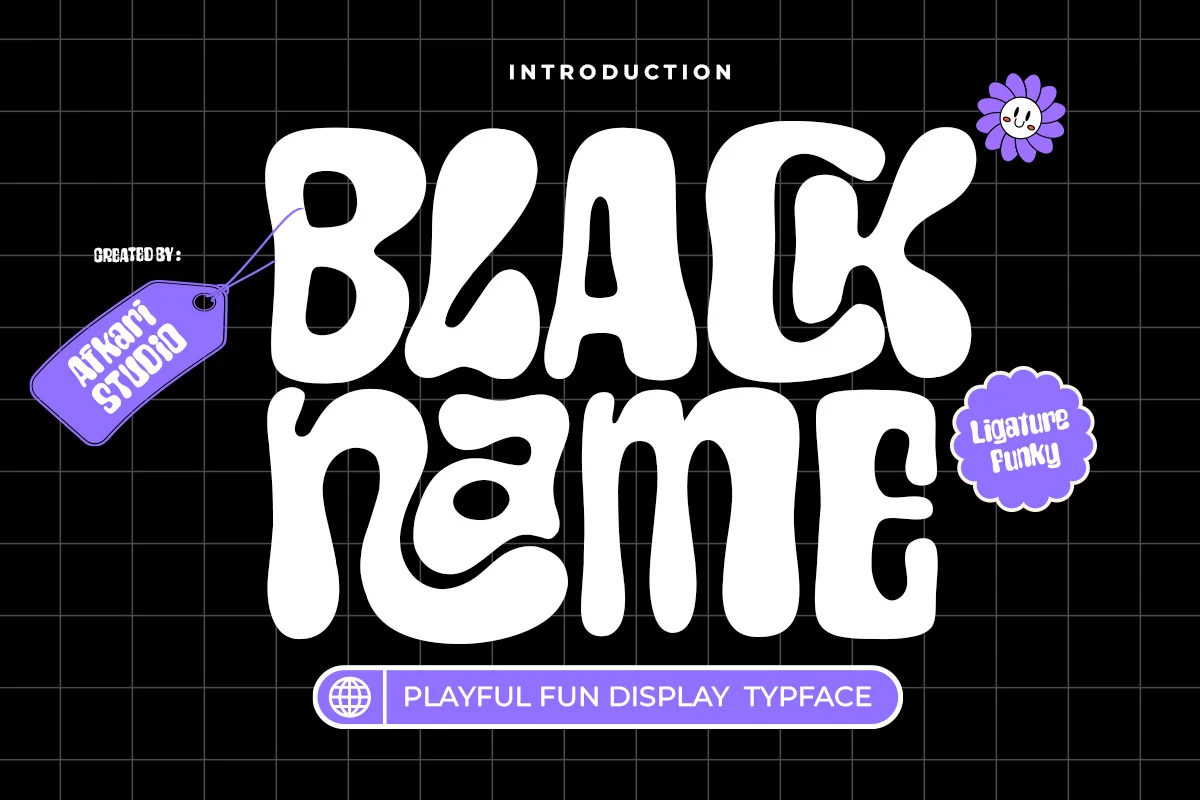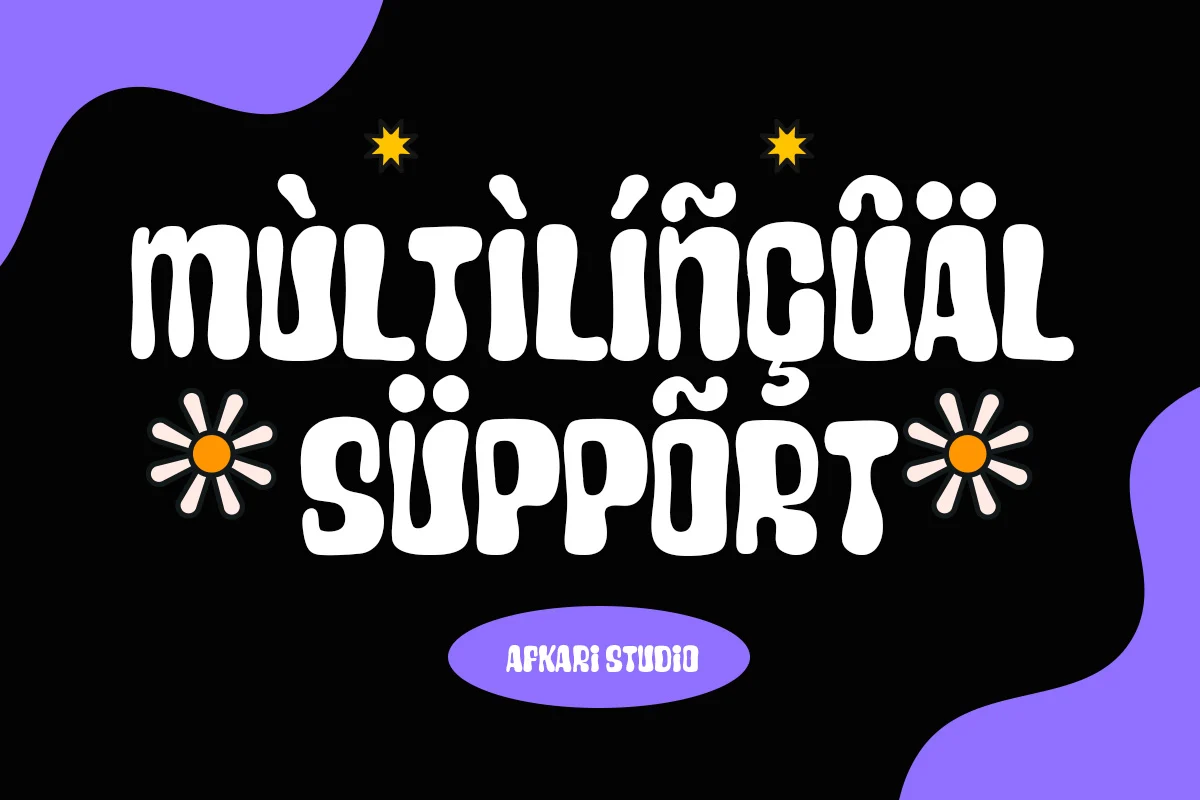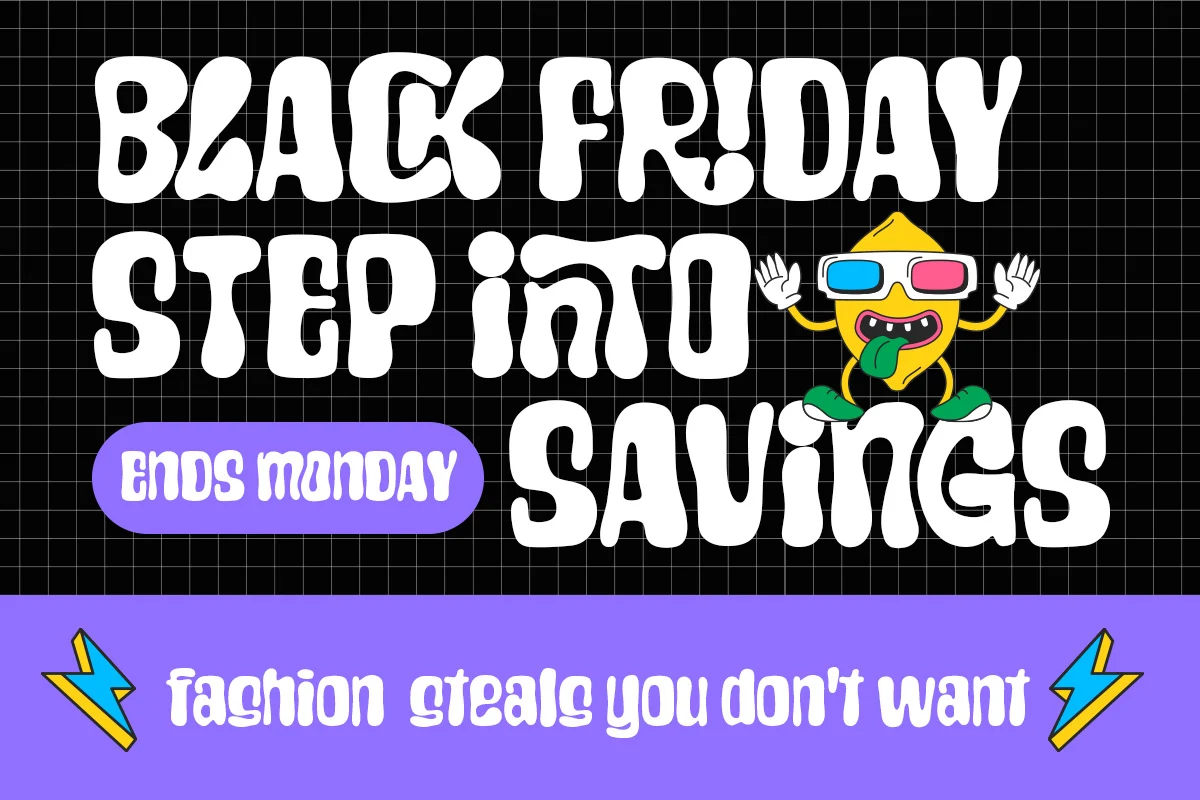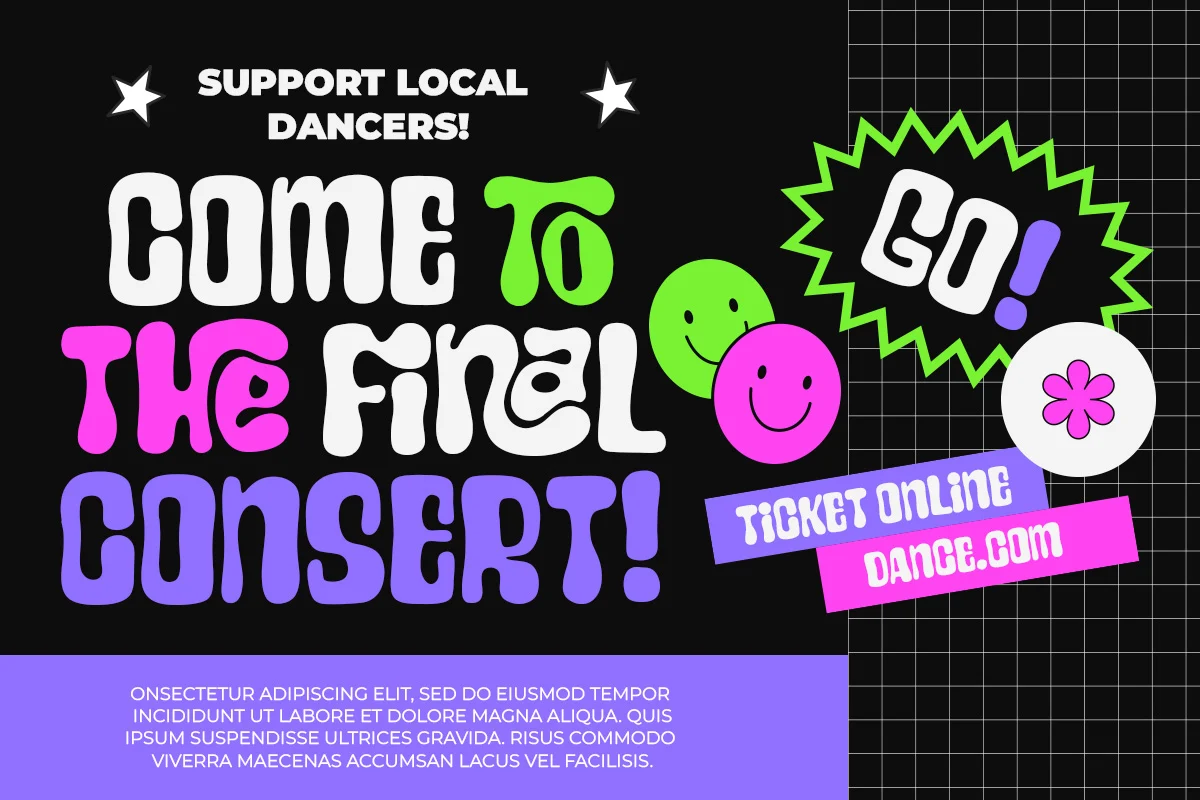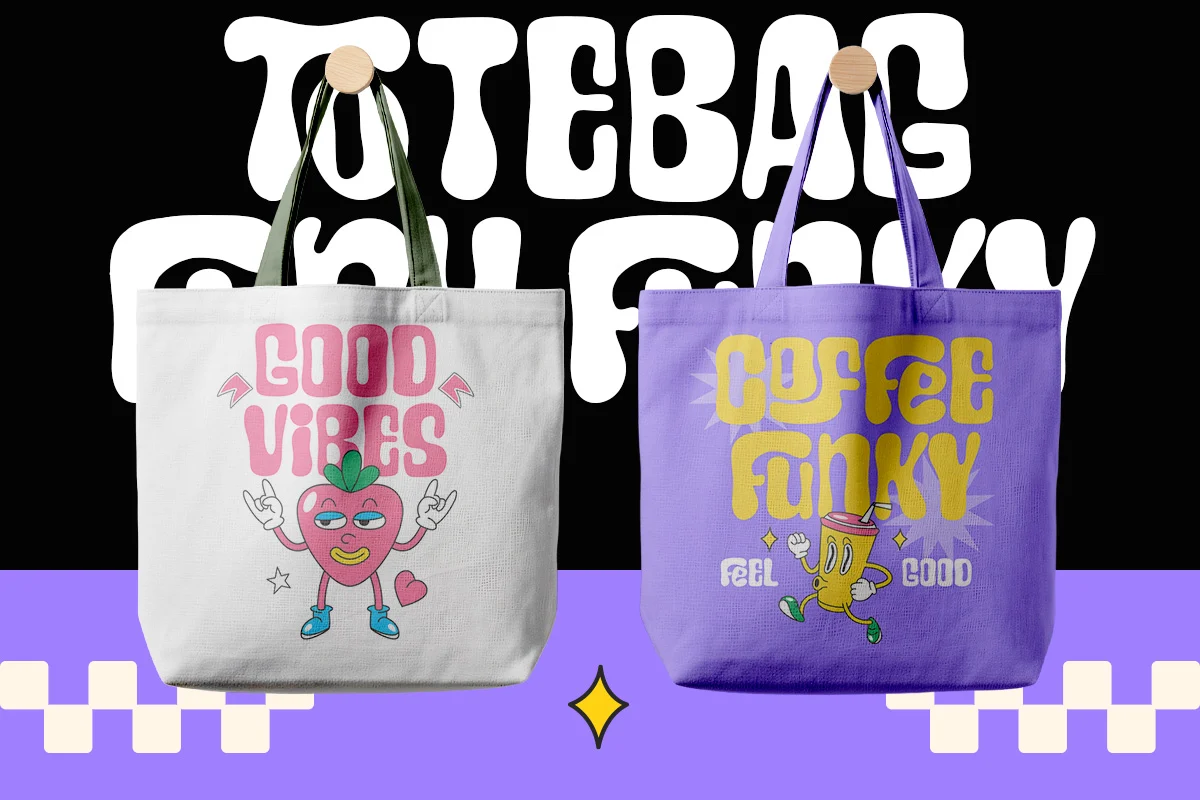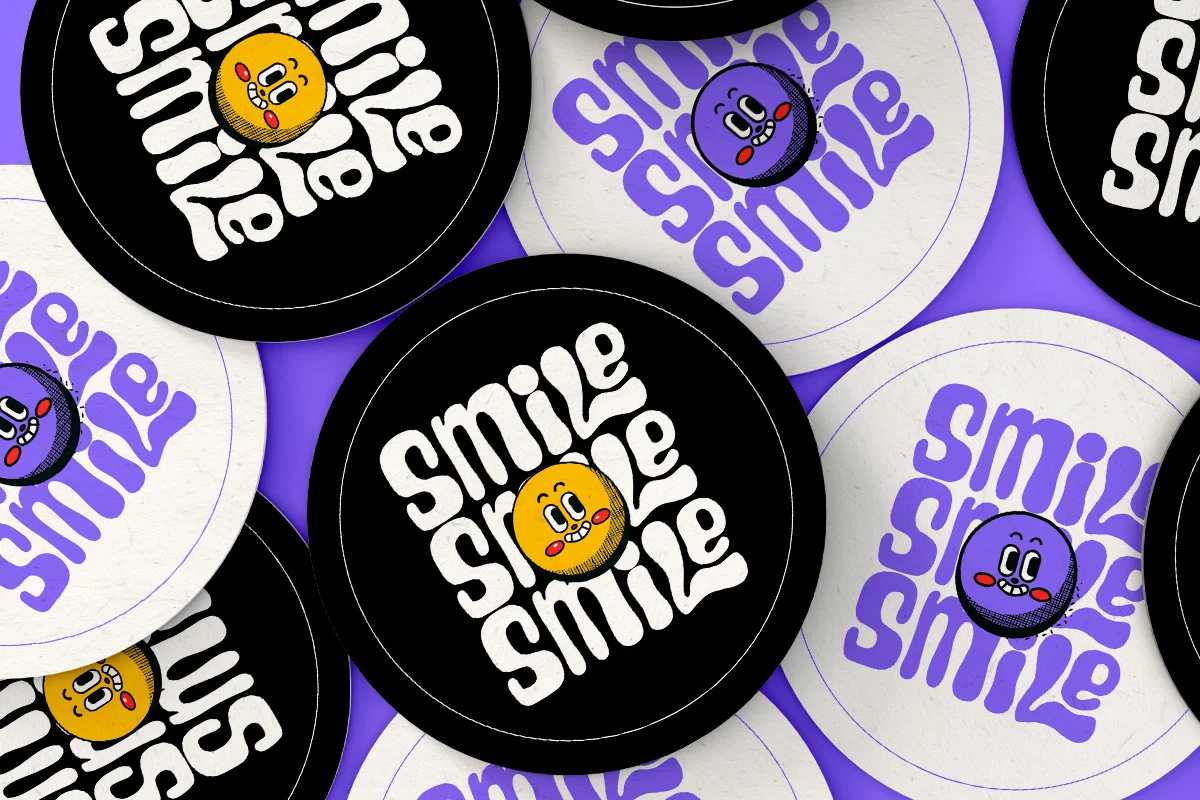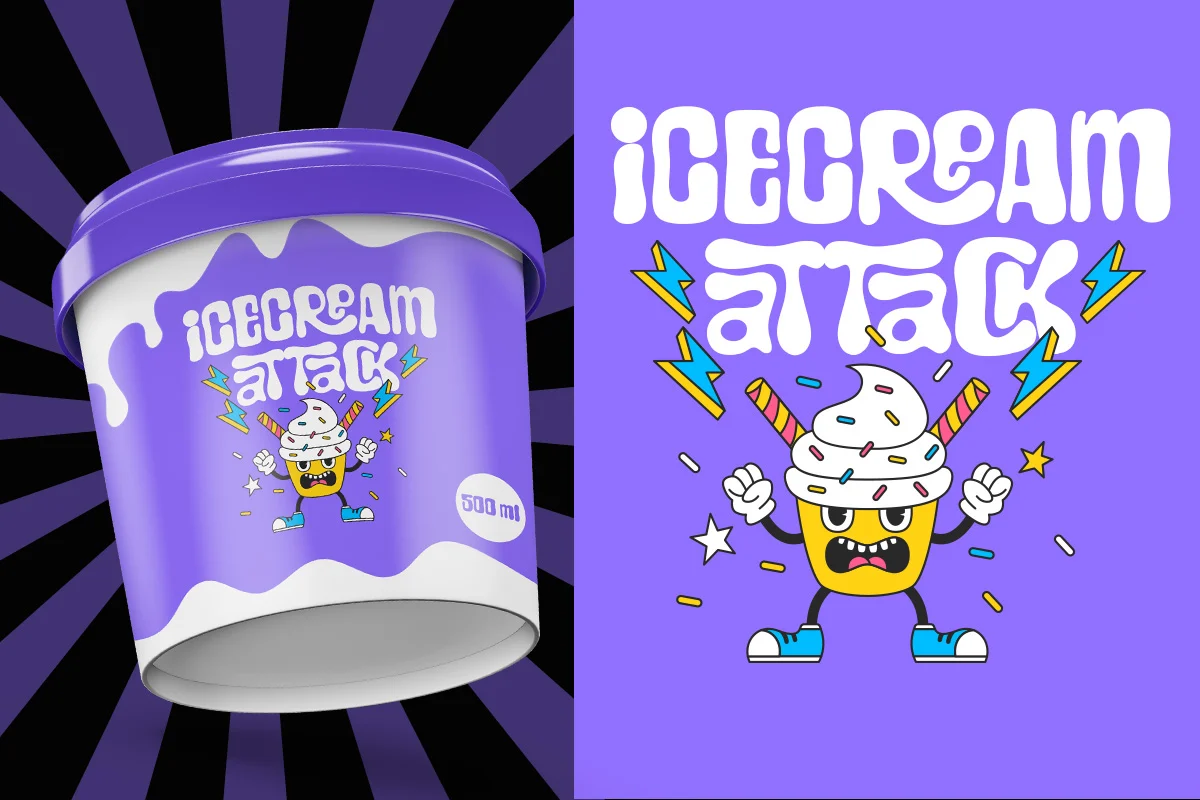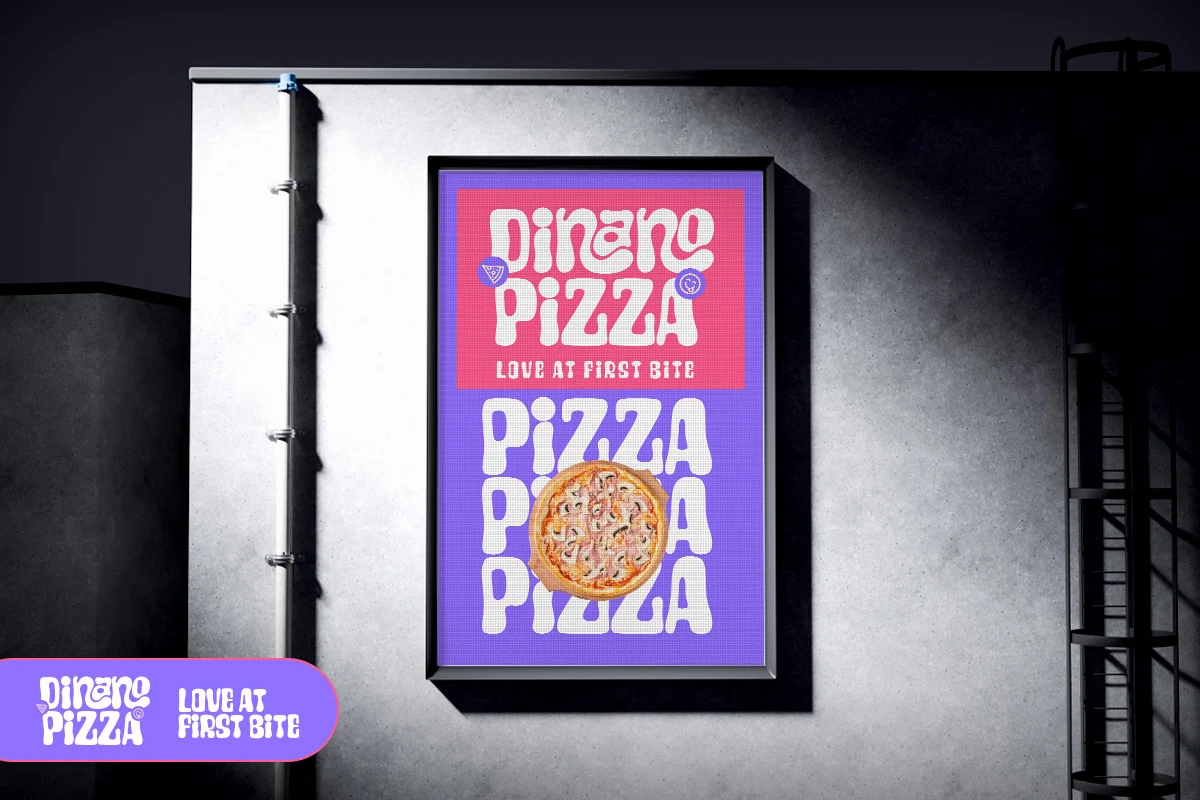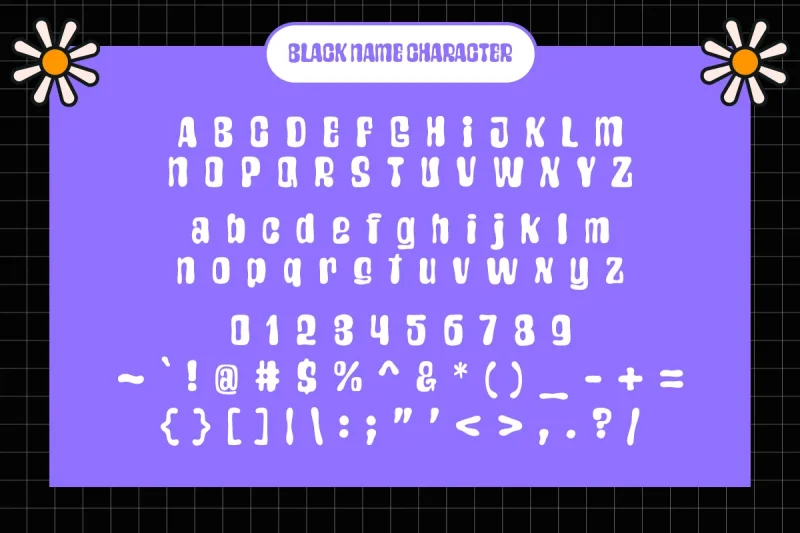
Black Name - Playful Fun Display Font
Black Name is a playful and fun display font designed to bring energy, charm, and bold personality into your creative projects. Featuring chunky letterforms and lively character shapes, this font instantly creates a cheerful and eye-catching look that stands out in any layout.
Built with a modern playful style, Black Name works perfectly for projects that require a friendly and approachable tone while maintaining strong readability. Whether used for branding, posters, packaging, or social media content, this font adds a joyful and creative touch to both digital and print designs.
Black Name is ideal for designers who want typography that feels bold, fun, and full of character.
– Playful fun display font
– Bold and friendly letterforms
– Uppercase & lowercase characters
– Strong readability for headlines
– Numbers & punctuation
– Mültîlíñgúãl Sùppört for; ä ö ü Ä Ö Ü ß ¿ ¡
Whether you’re creating fun branding, colorful packaging, or energetic promotional materials, Black Name helps your design stand out with warmth and personality. Add a lively and memorable touch to your next creative project with this fun display typeface.